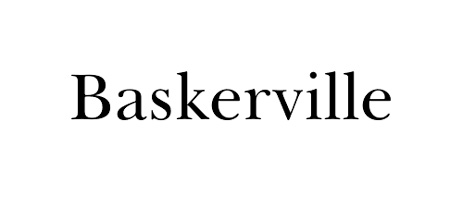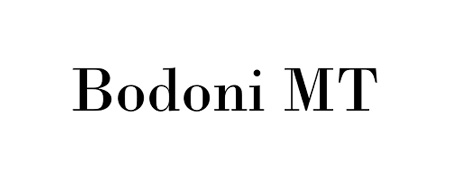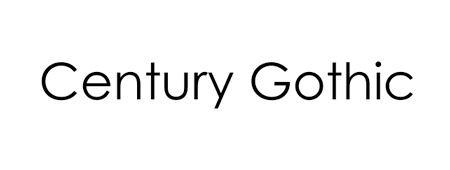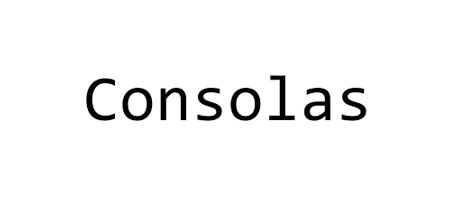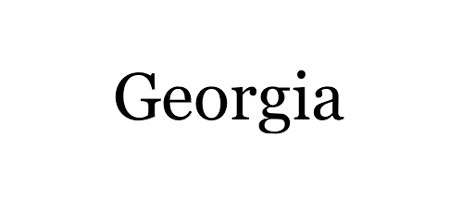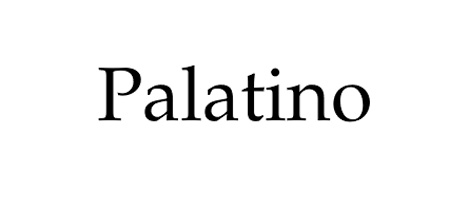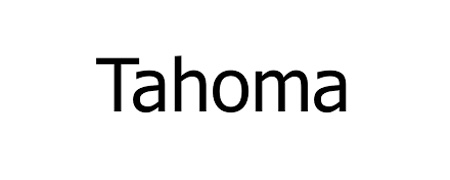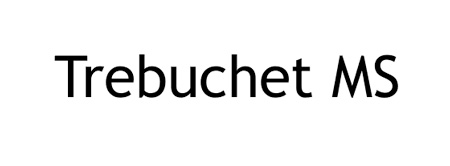
With the rise of @font-face and the new possibilities it opens, web designers like to use fancy fonts to make their website more unique. However, this does come with a price, an more important loading time for web pages.
If saving bandwidth and having fast loading pages is important for you, don’t worry too much, it doesn’t mean you have to give up on typography. There are a few fonts that you can use to make sure your website is looking right without using Arial or Times New Roman. In this post we take a look at some fonts that are already installed on your visitors computers most of the time.
Serif fonts
1. Baskerville
A classic serif font published by Bitstream. Baskerville is an elegant and stable serif font that will give your webpages a beautiful look.
2. Palatino
Palatino was superstar type designer Herman Zapf’s first very popular font, it was based on his own calligraphy.
3. Bodoni MT
Widely used in the luxury industry, Bodoni MT or Didot are synonymous with elegance.
4. Georgia
Many designers already use Georgia on their website, a great option if you want a highly-readable font.
Sans-serif fonts
5. Century Gothic
Century Gothic is a clean, rounded sans-serif font to give your site a modern look.
6. Tahoma
Tahoma is a sans-serif font that was designed specifically for on-screen display, it is very legible at small sizes.
7. Arial Narrow
Arial is one of the most despised fonts by designers, but its condensed version looks actually quite decent (unless you compare it to Helvetica Condensed, then it looks bad).
8. Trebuchet MS
Trebuchet is a humanist sans serif typeface designed for good screen readability by Vincent Connare, the guy who designed Comic Sans.
Monospaced fonts
9. Consolas
Consolas is a nice monospaced font, perfect for programming or sharing code on your website.
10. Lucida Sans Typewriter
Lucida Sans Typewriter is a monospaced sans serif typeface with subtle curves and a good display on screen.